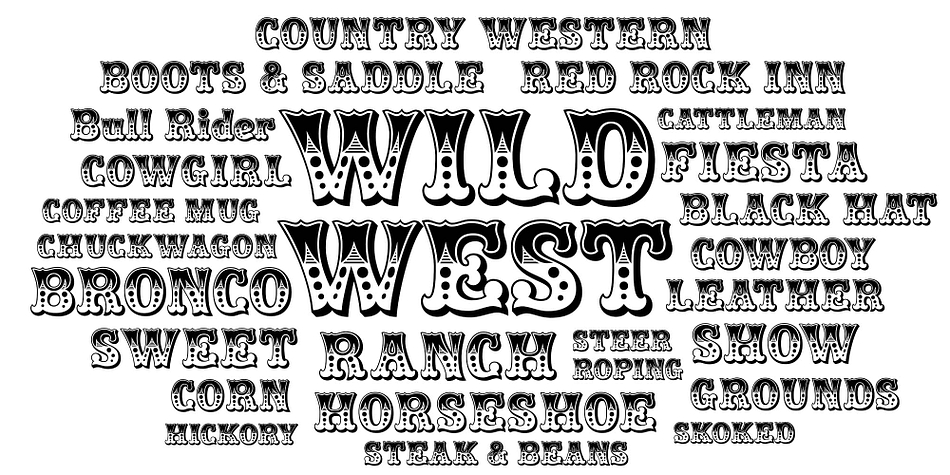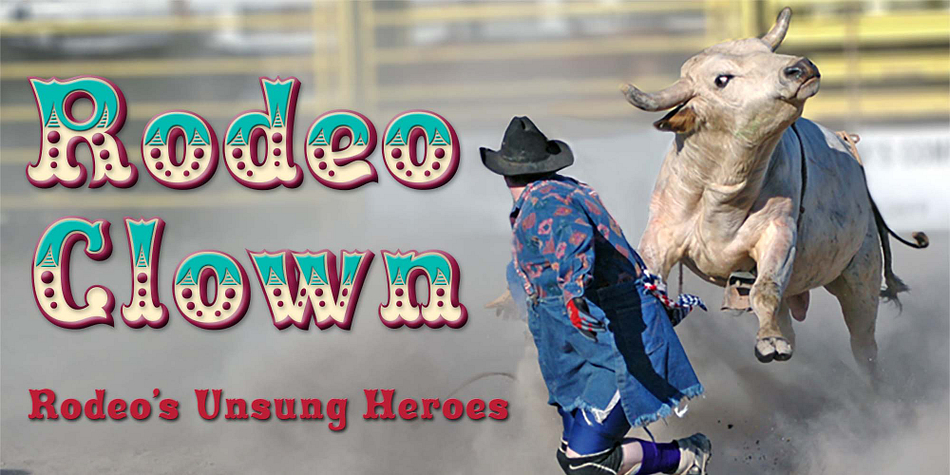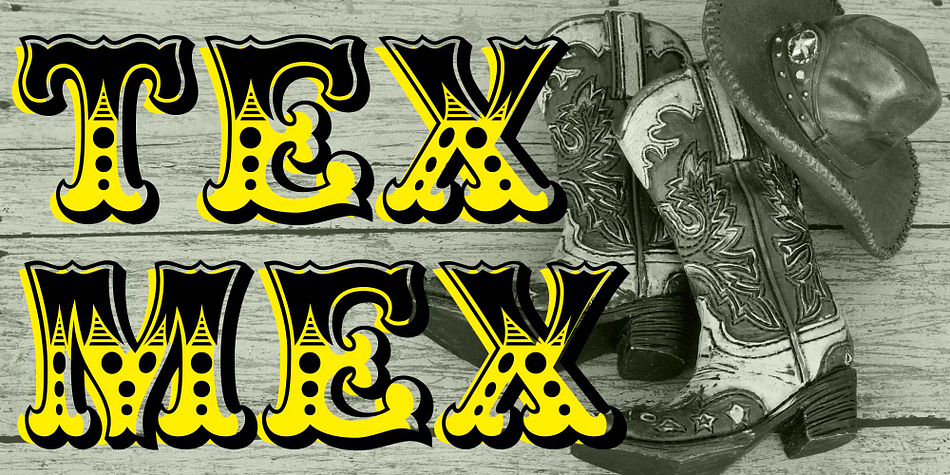
Rodeo Clown is a novelty and western font family. This typeface has four styles and was published by FontMesa.
Rodeo Clown is a revival of an old classic font that you may have known under the name of Carnival.
The original Carnival font dates back over one hundred years and has never been known to have a lower case set of letters until now.